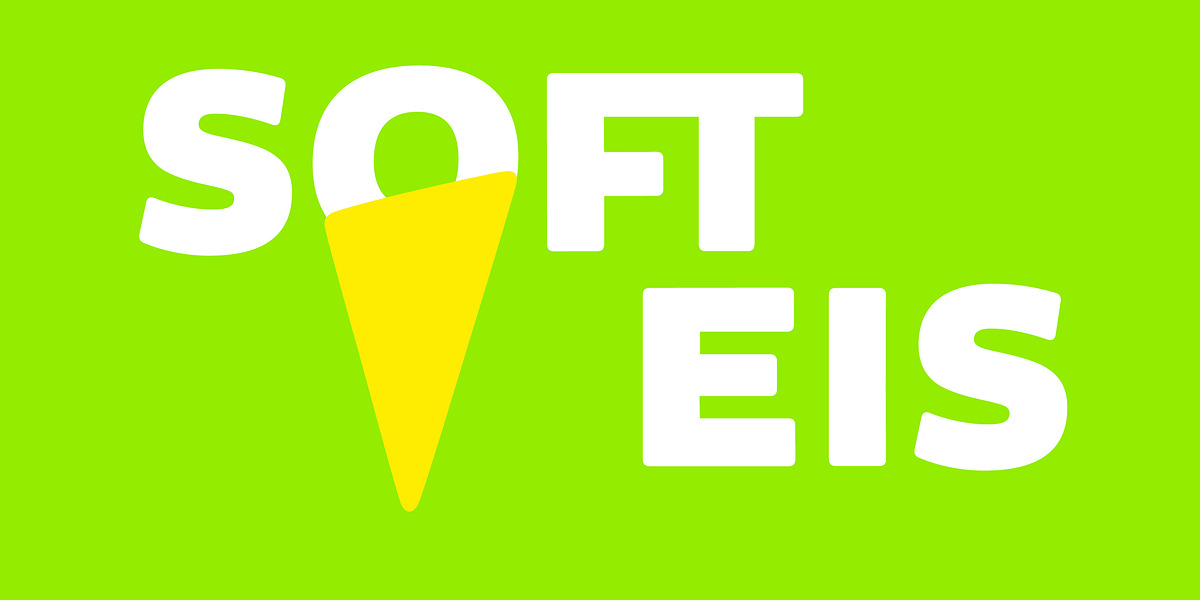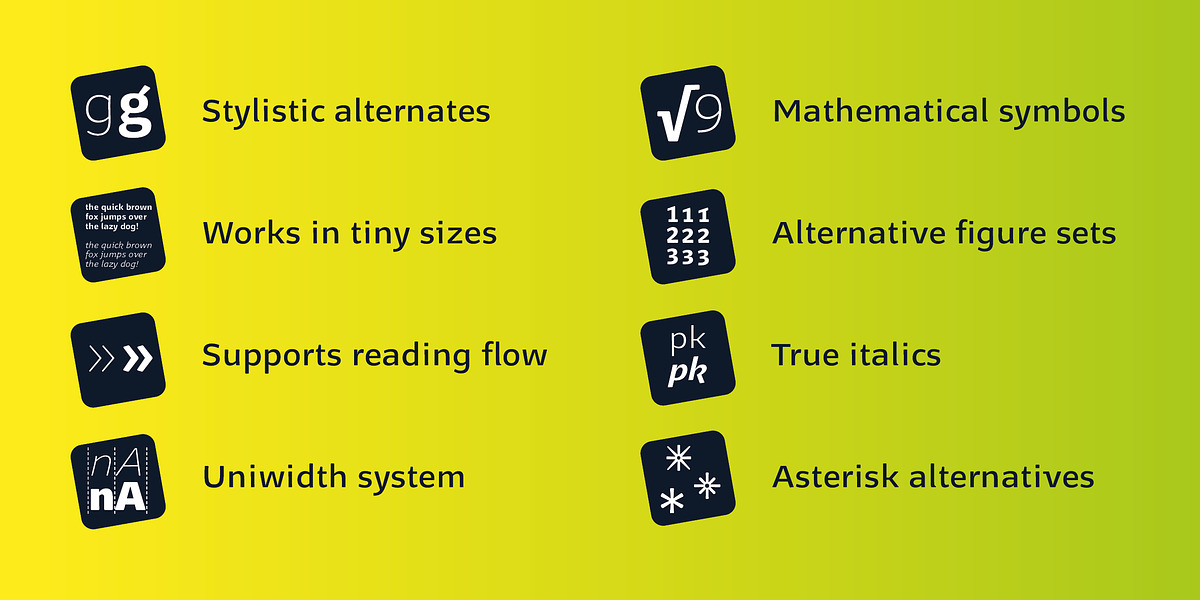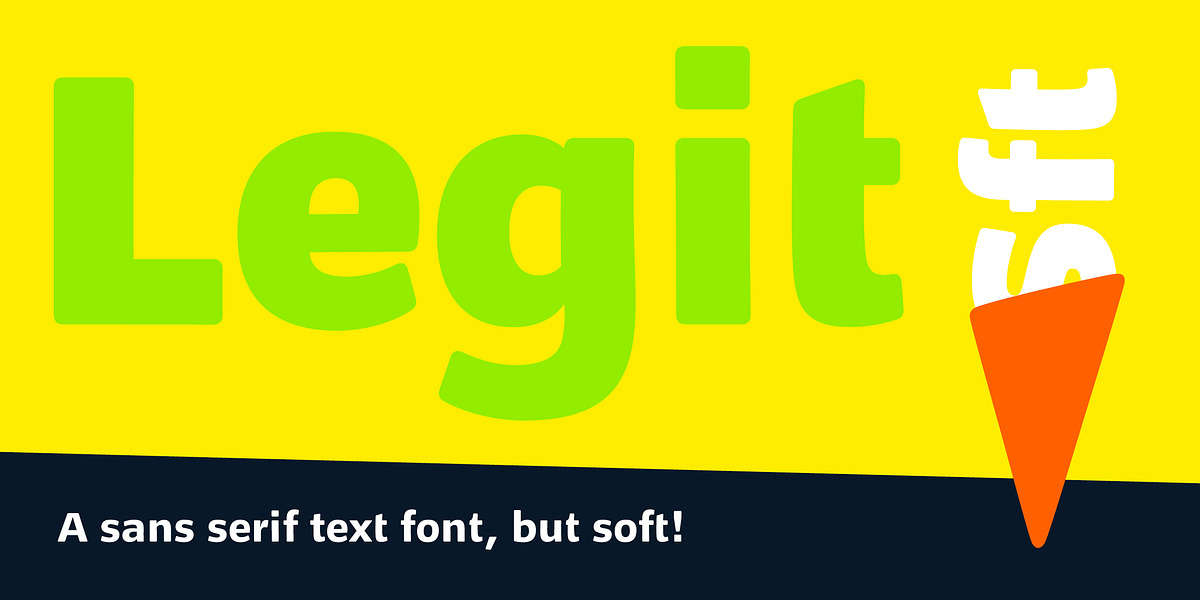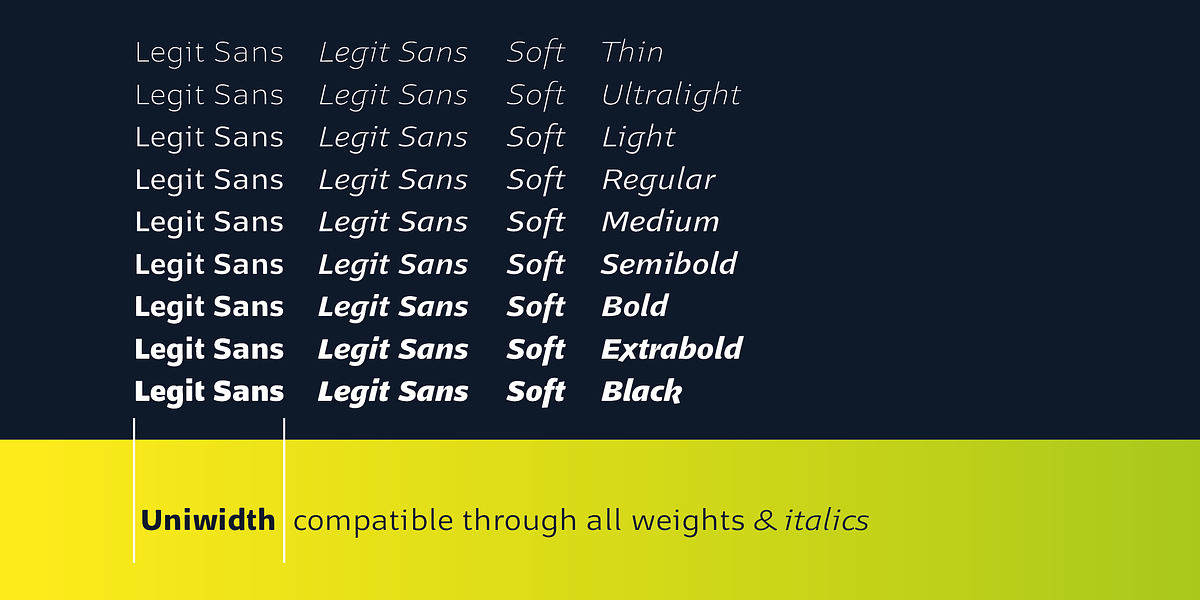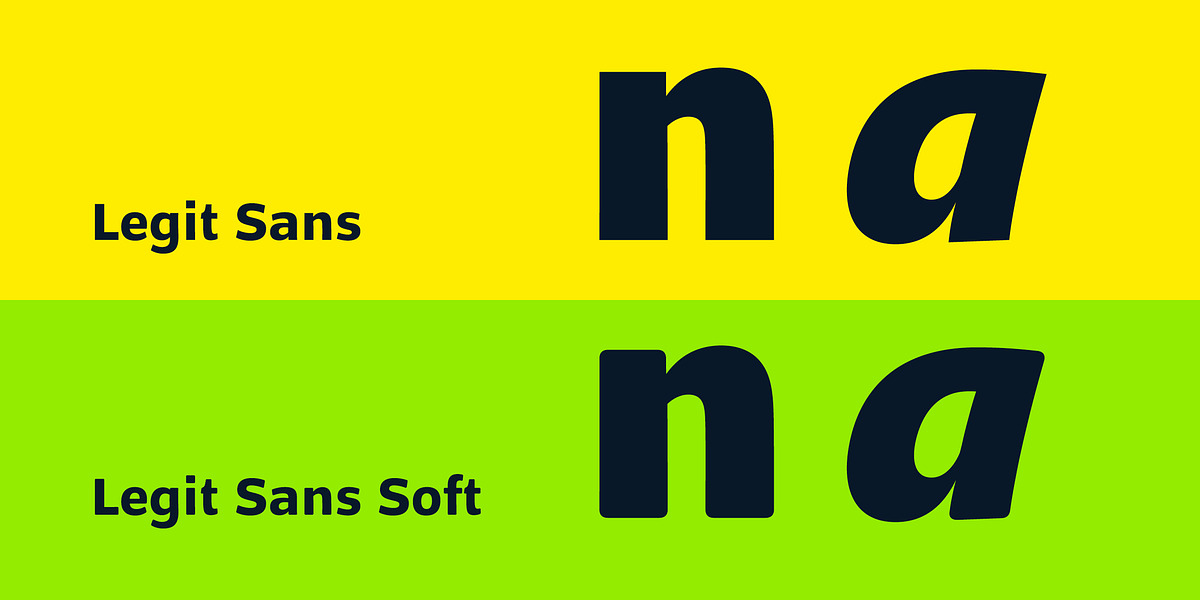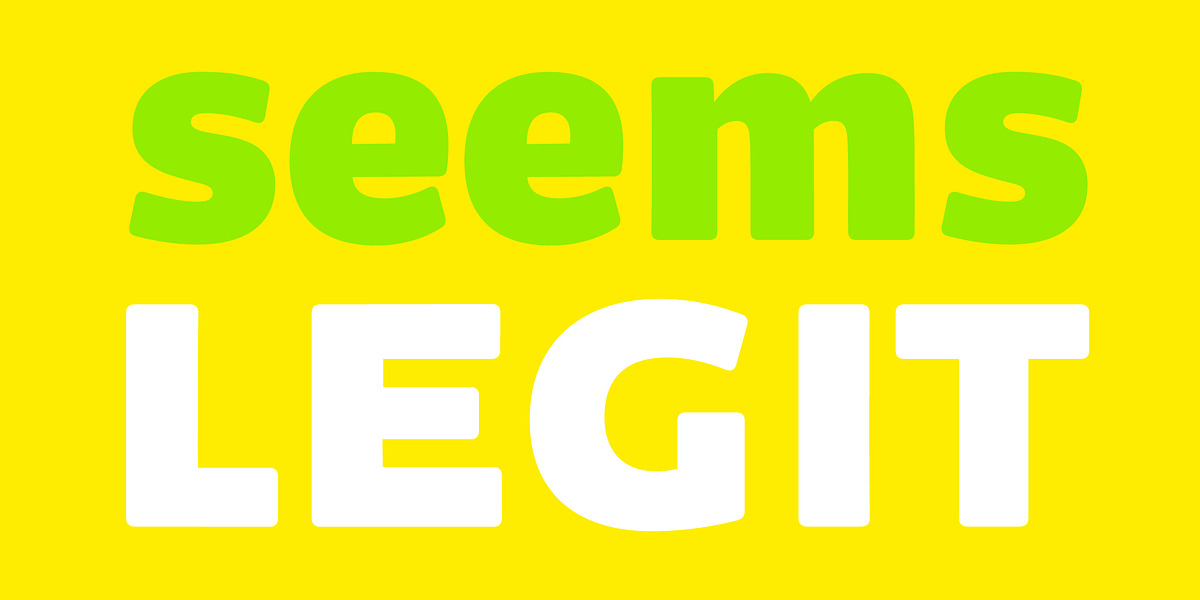
Legit Sans Soft
Legit Sans Soft is a rounded sans serif typeface designed for both readability in text sizes and elegance in display settings. Its key feature is a uniwidth system where all 18 styles maintain the same width, allowing for easy swapping without layout changes. The font includes ligatures and stylistic alternates, as well as strong accents supporting over 36 languages.